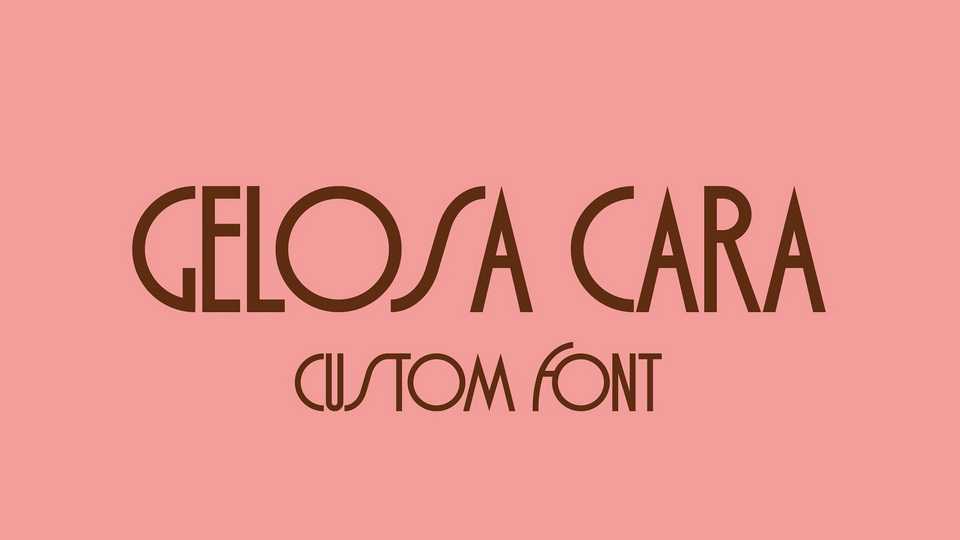
Download Gelosa Cara typeface, quite an retro font family in two styles inspired by the history of fonts and typography, and influenced by the authenticity of the rationalist culture.
Designer: Pietro Filippeschi